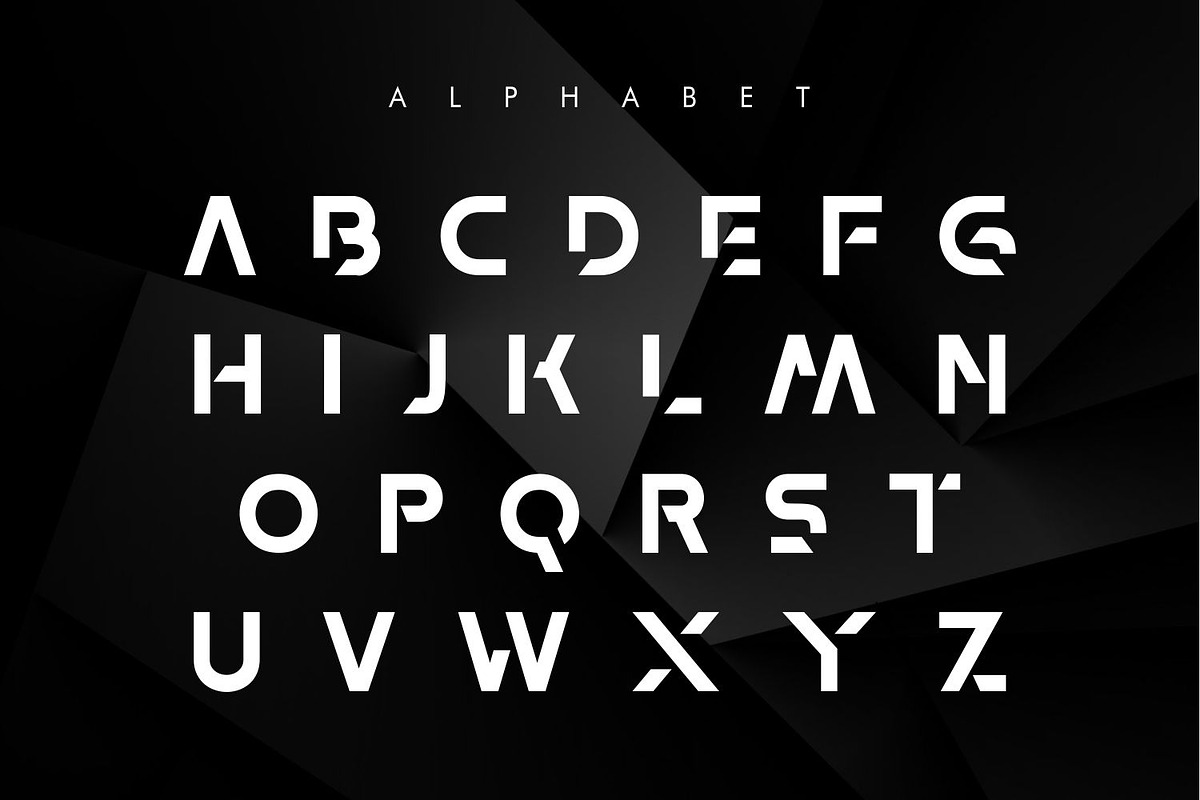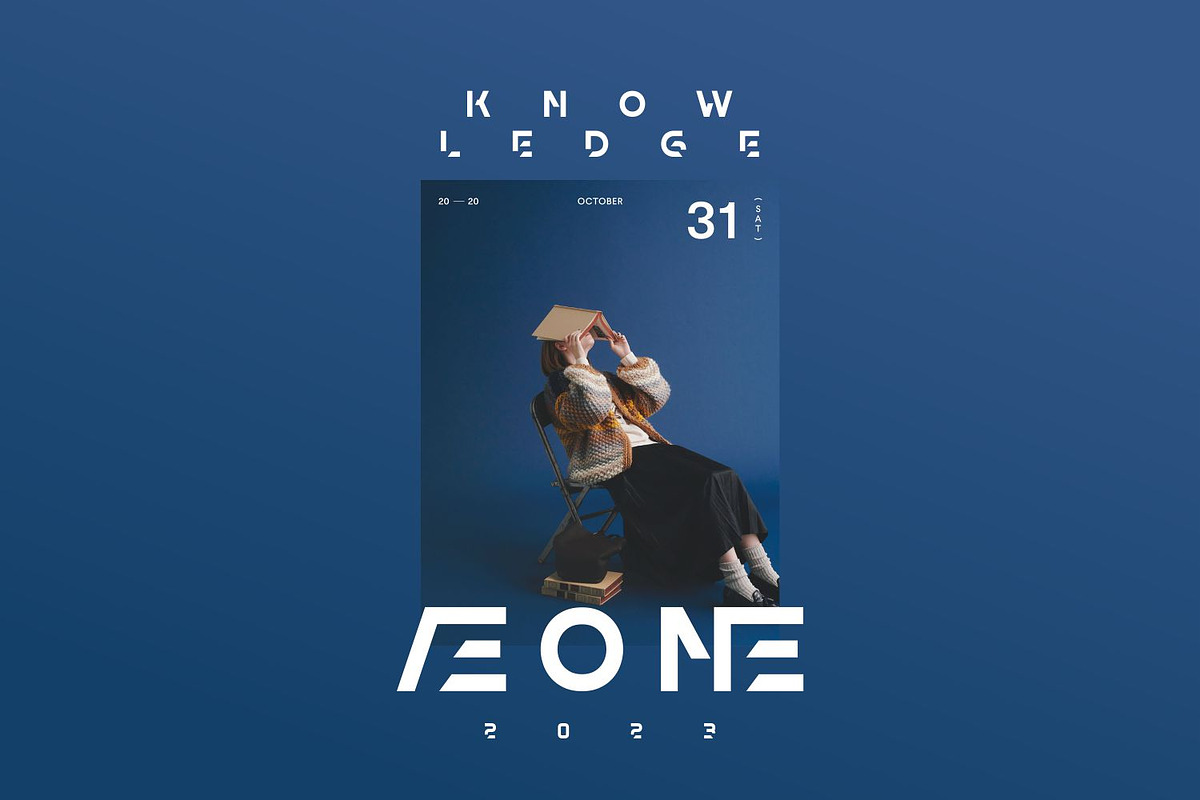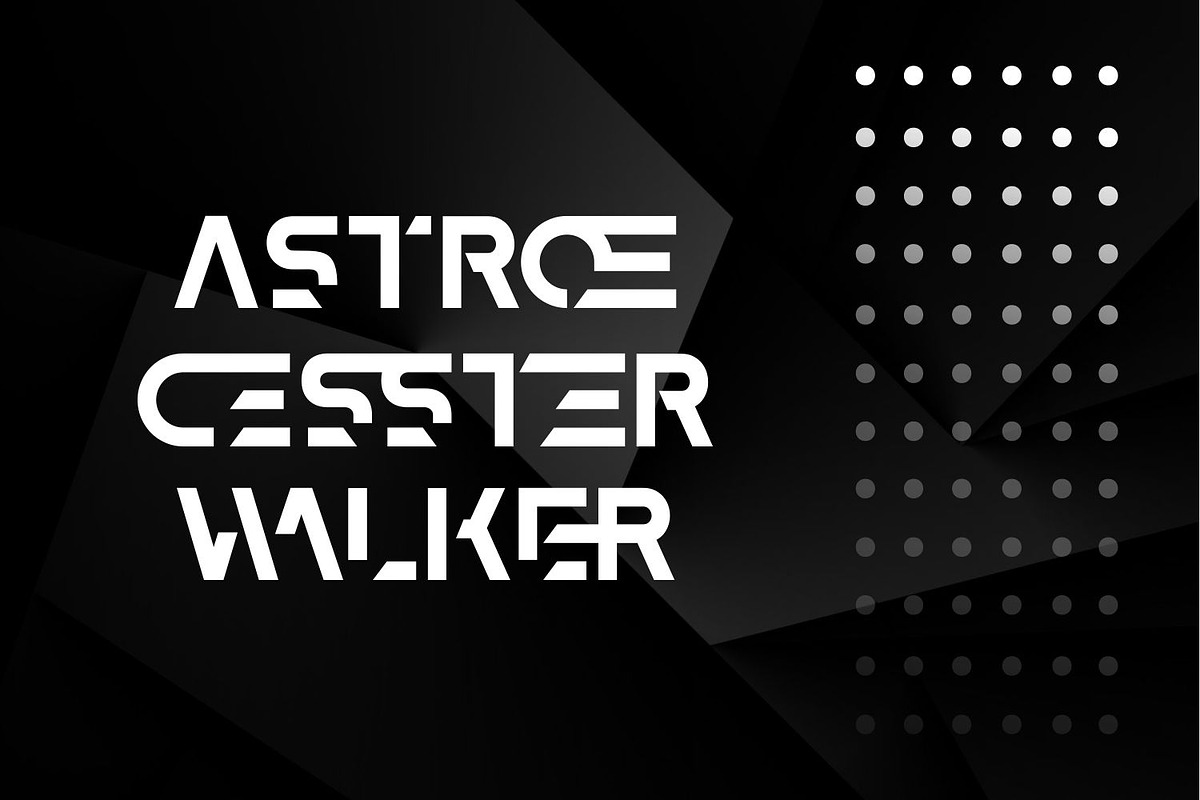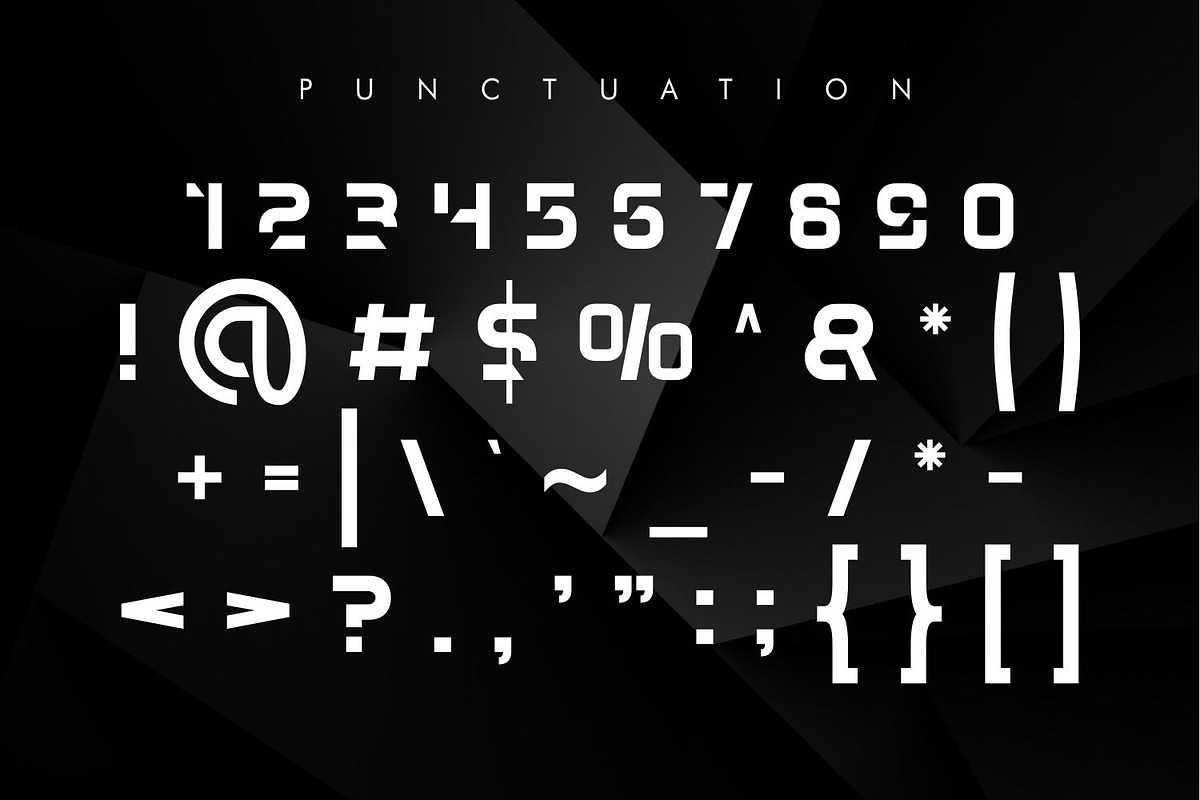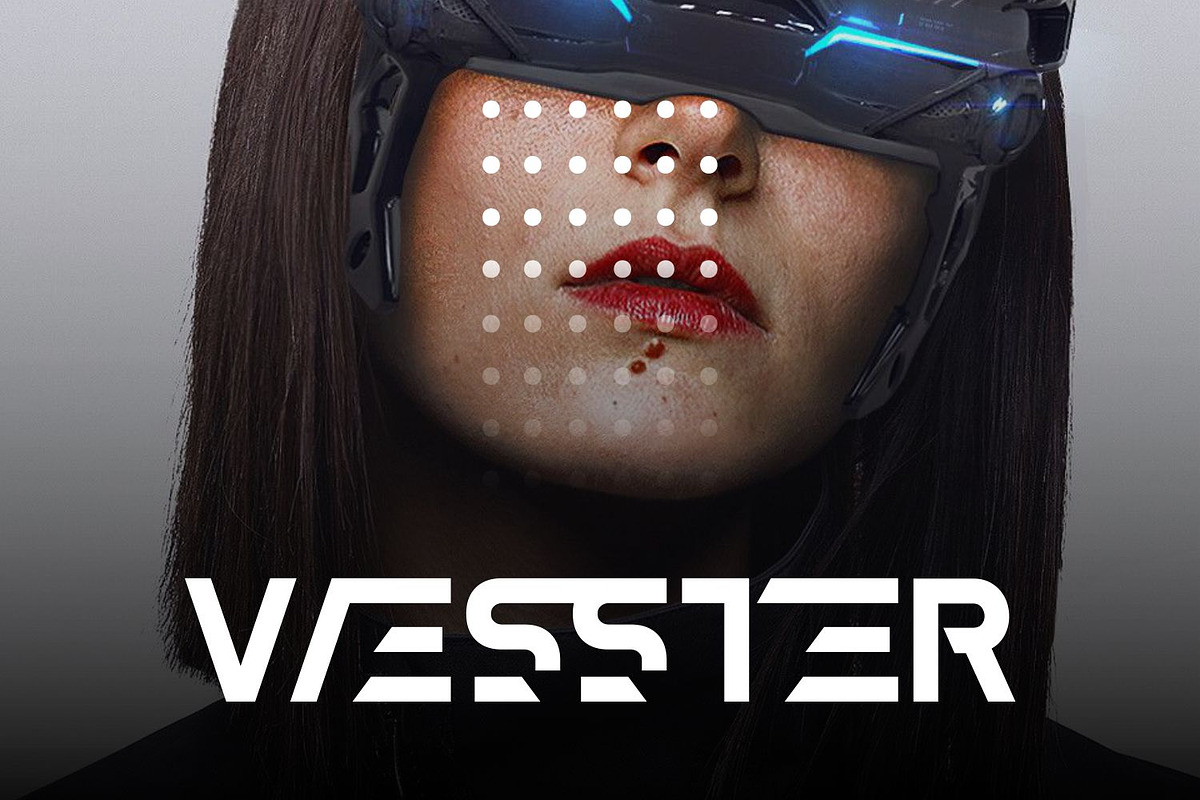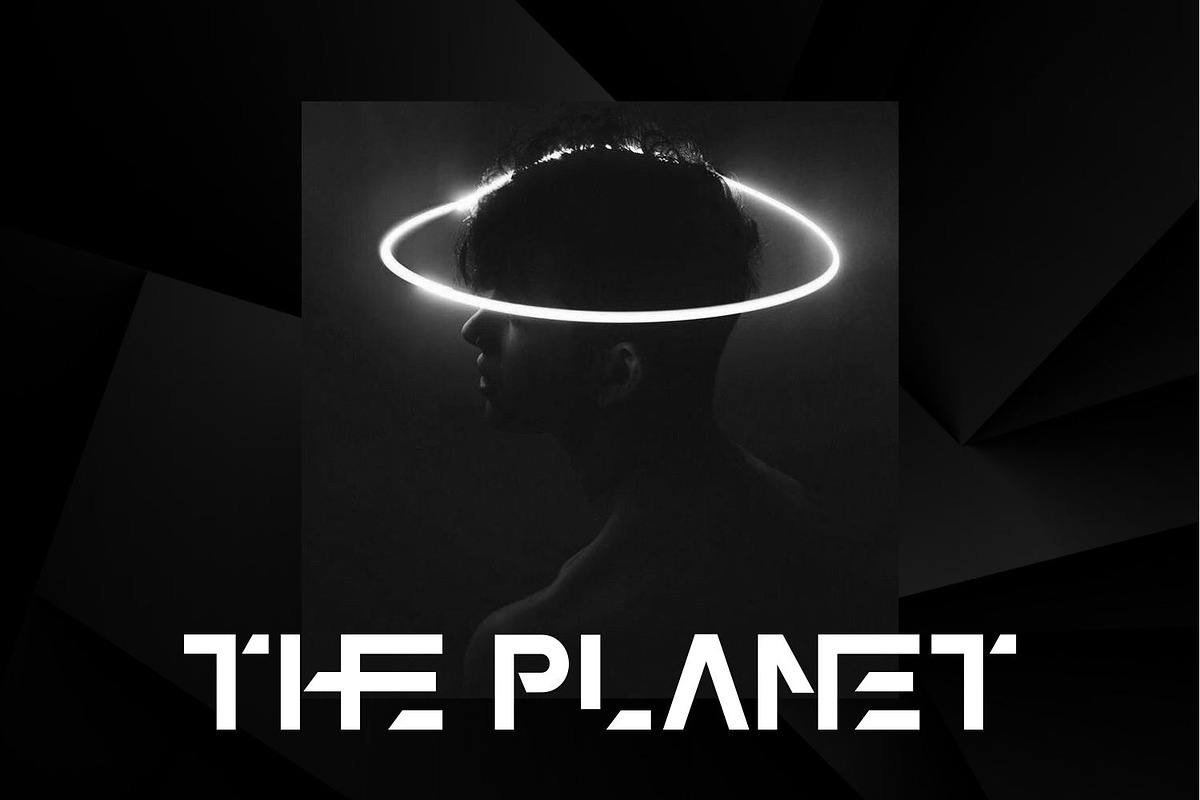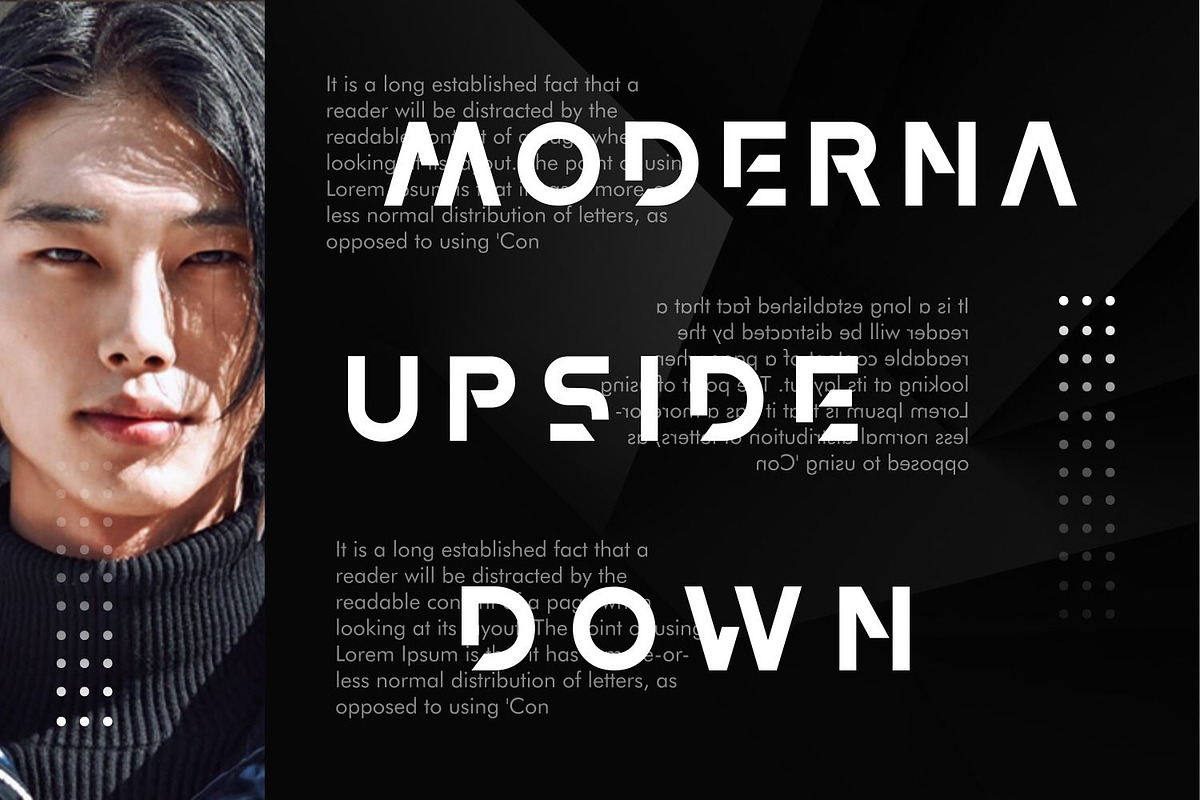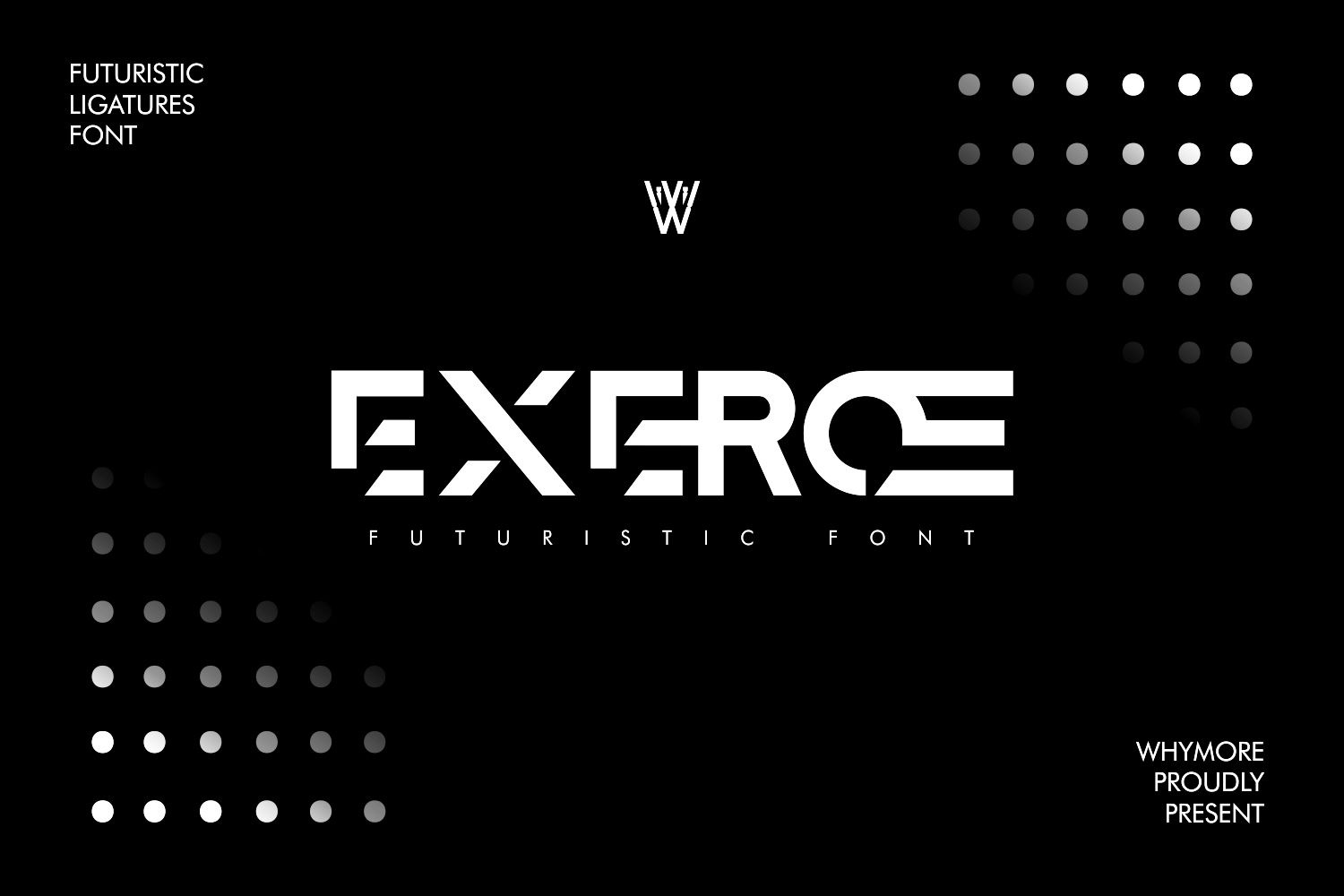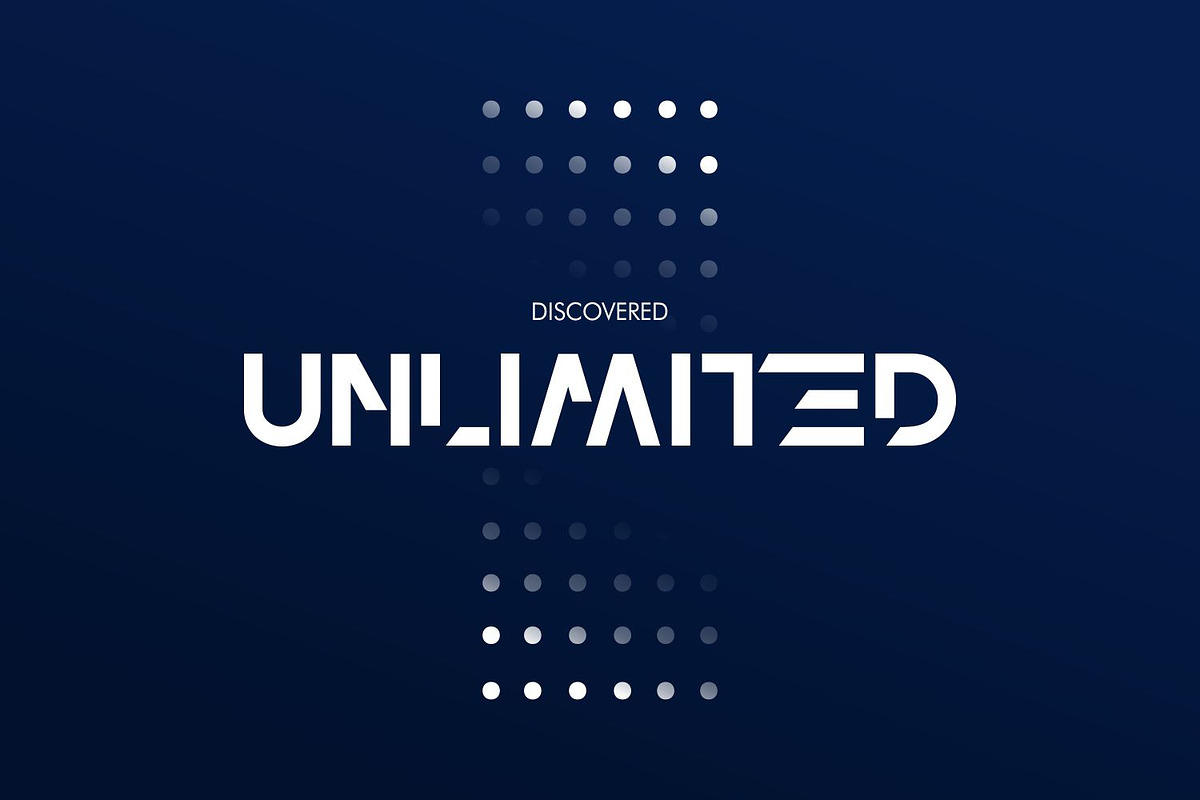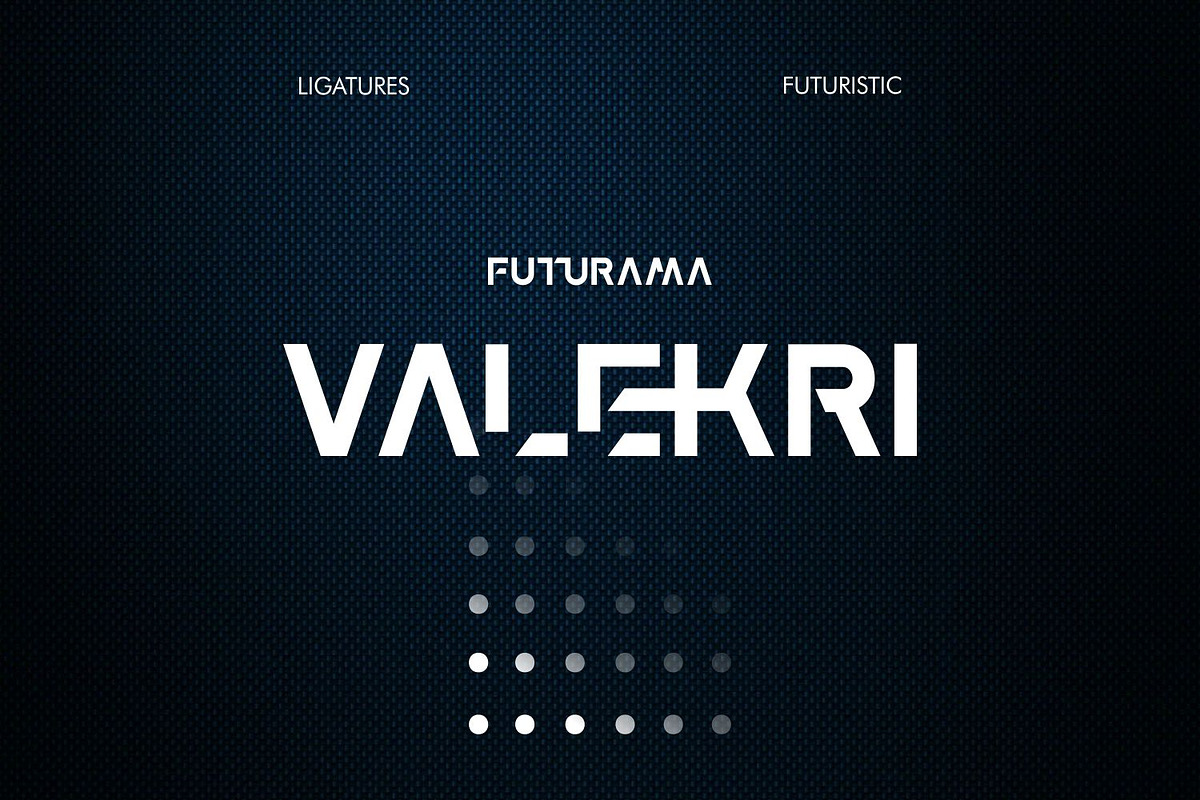
Exeroe Font | Futuristic Bold Font
The Exeroe Font is a sleek and futuristic typeface that embodies innovation and modernity with its clean lines and geometric shapes. Inspired by advanced technology and forward-thinking design, this font features sharp angles and bold letterforms that evoke a sense of progress and sophistication. Whether you’re designing for sci-fi themes, tech startups, or futuristic branding, the Exeroe Font adds a touch of contemporary flair that captivates the viewer. Its minimalist design and versatility make it perfect for a wide range of digital and print applications. Embrace the future of design with the Exeroe Font.